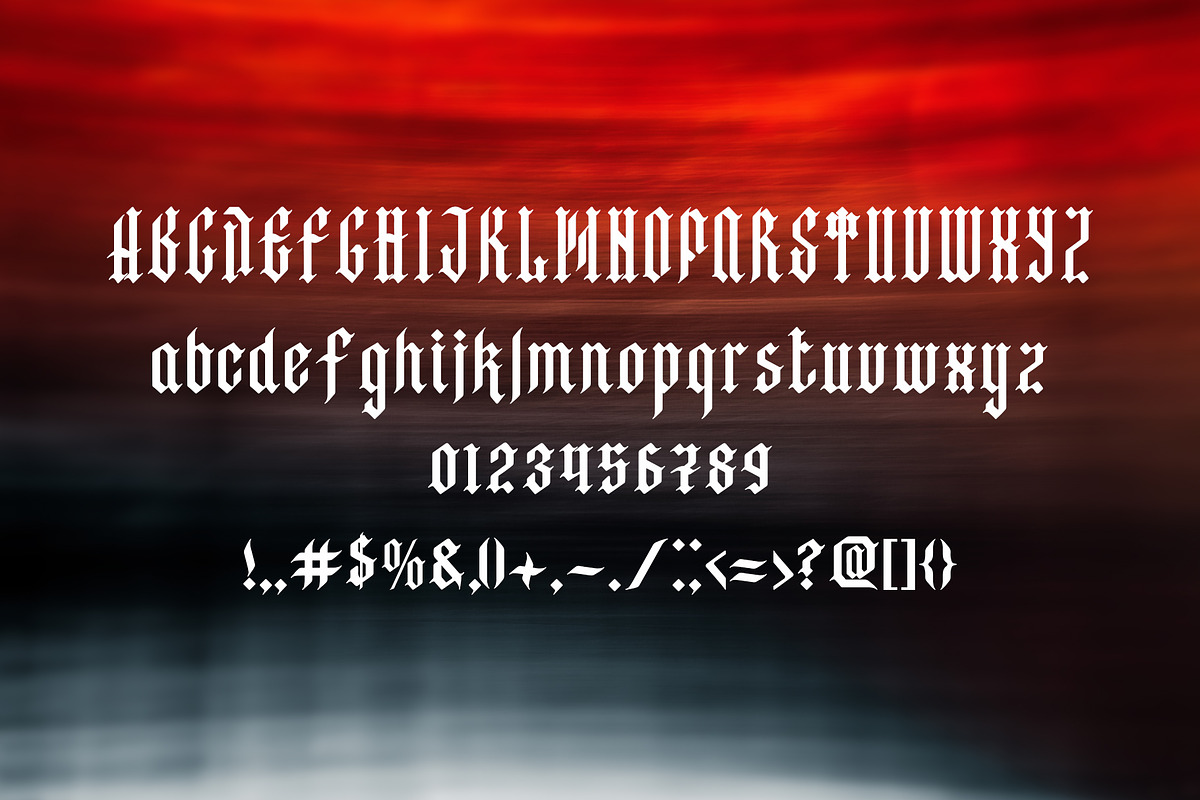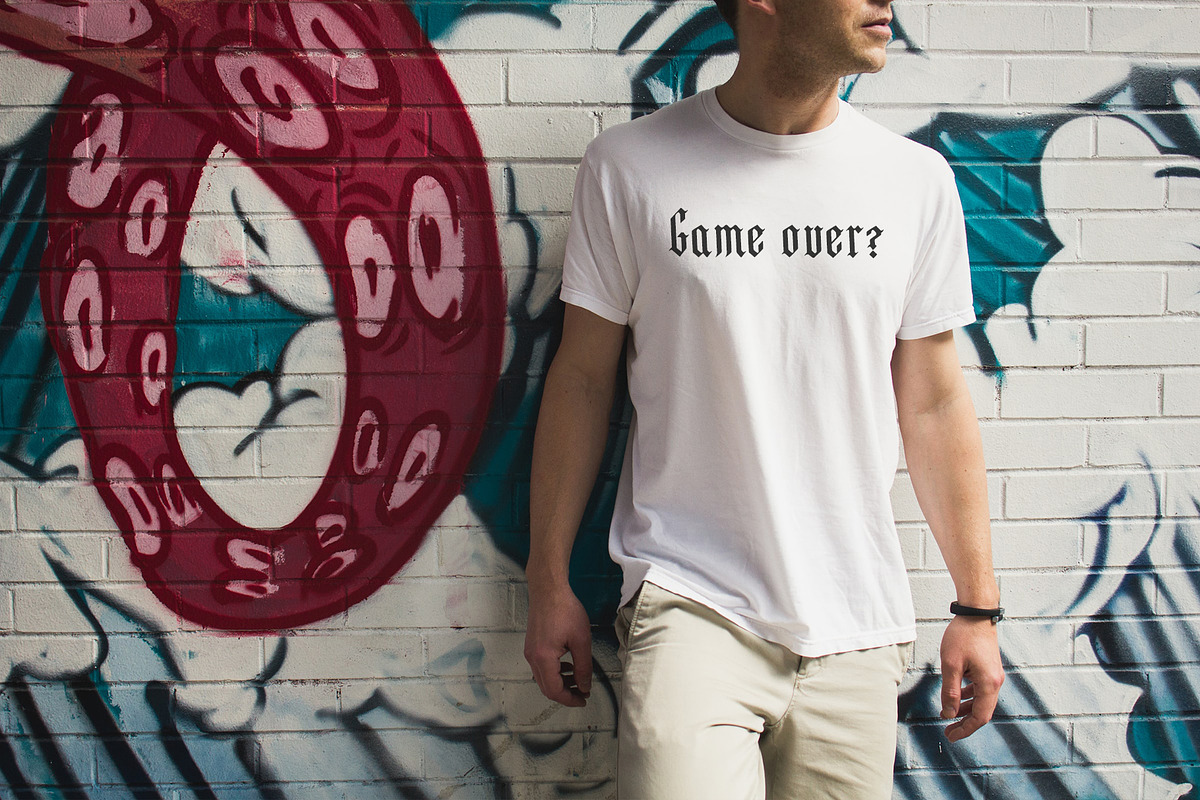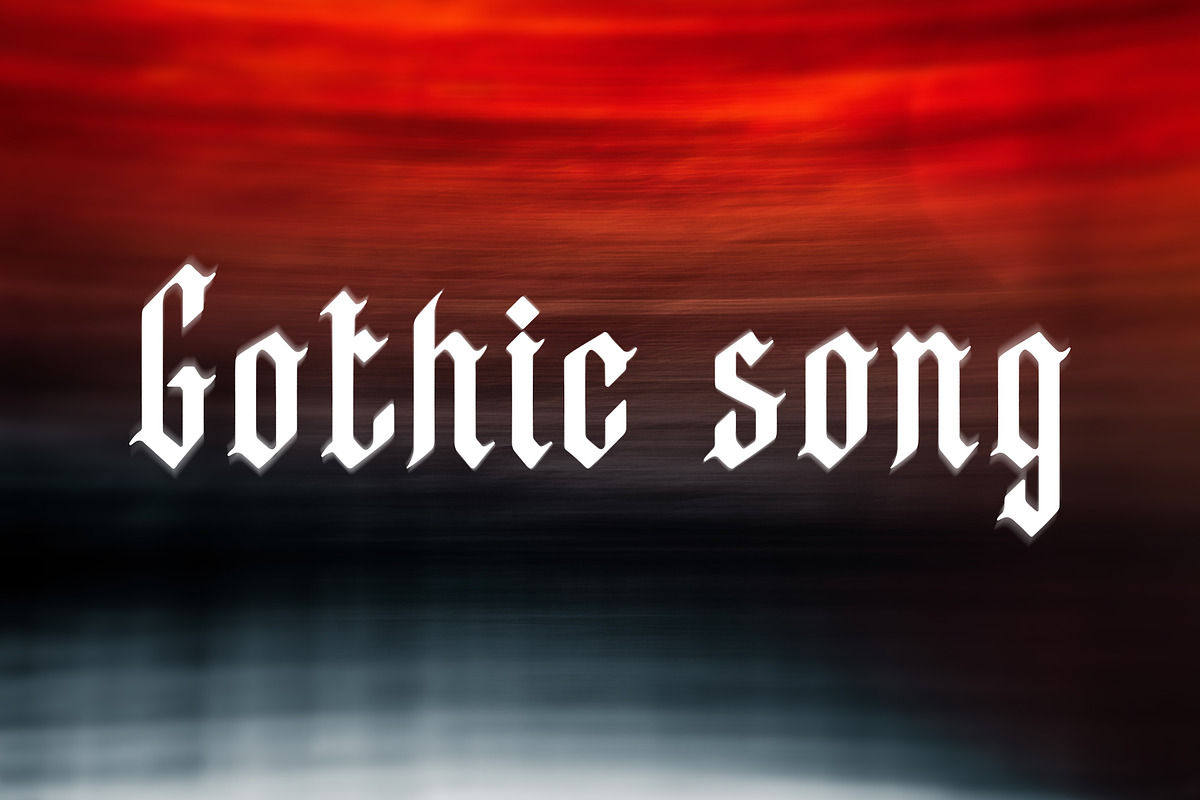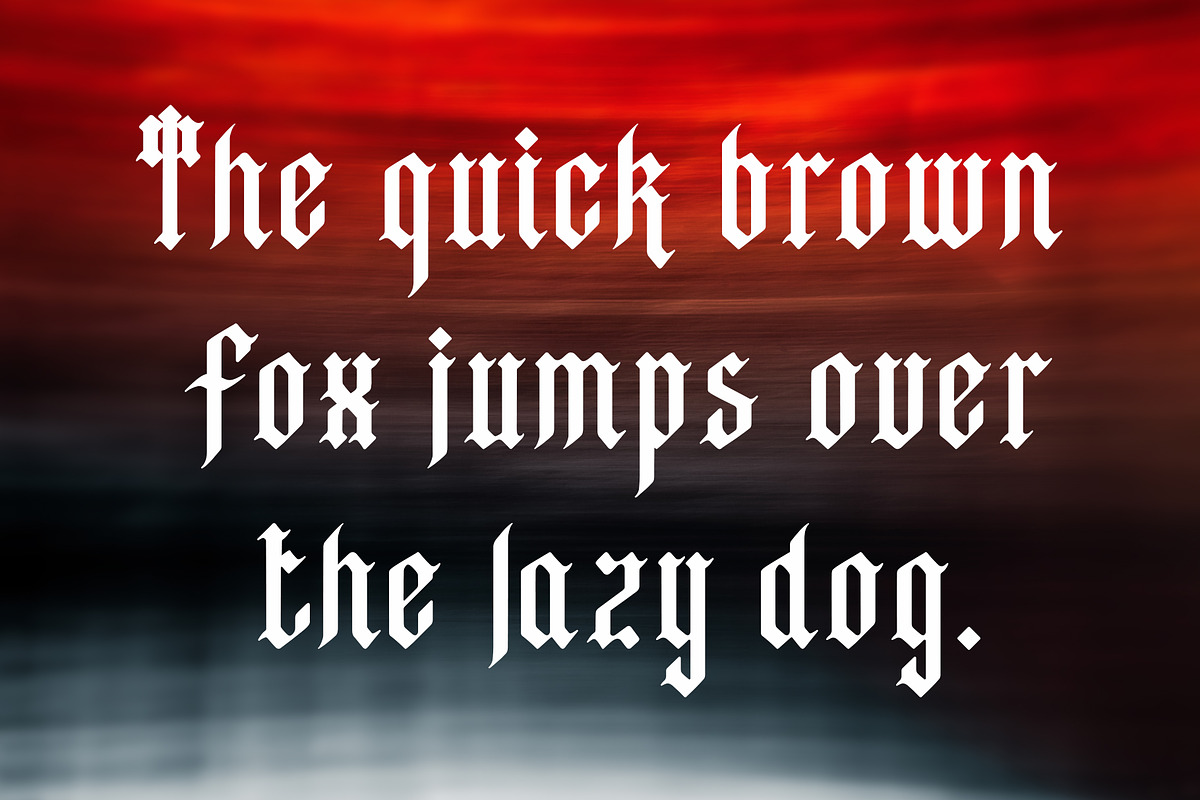
Gothic song. Gothic Blackletter.
About the Product GOTHIC SONG - A Modern Blackletter Typeface
GOTHIC SONG is a modern black lettering typeface based on the Gothic folios and combining a modern brutal typeface design. It is most suitable as a lettering design for printing on textiles and creating posters and articles, and is also suitable for creating packaging. It is upper and lower case and includes 90 characters, numbers and glyphs.